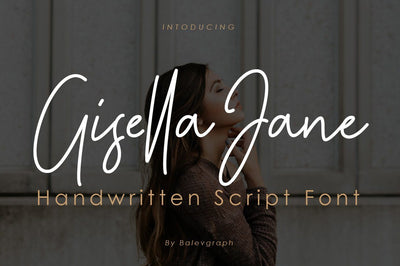
Gisella Jane Handwritten Script Font
Gisella Jane is a sweet and delicate handwritten font. Dainty and joyful, this font will be ideal for writing wedding invitations, cards or any other design that may need a romantic, personalized touch!
- Uppercase, Lowercase, Numerals & Punctuations
- Ligature & Alternate